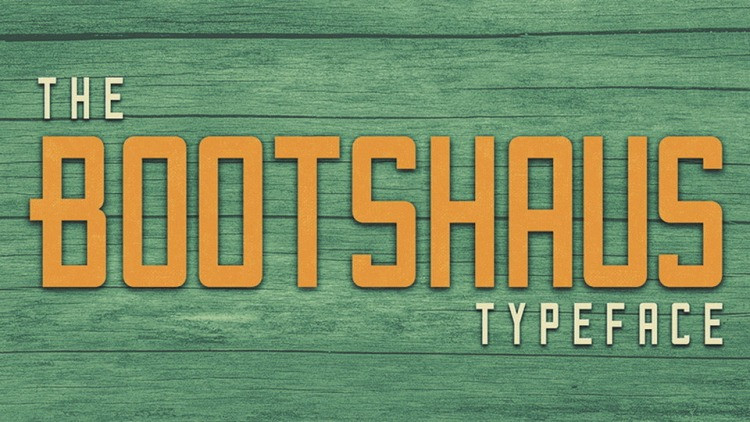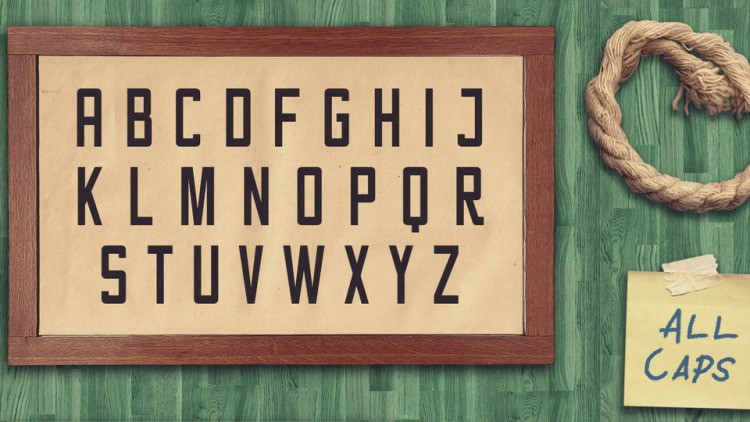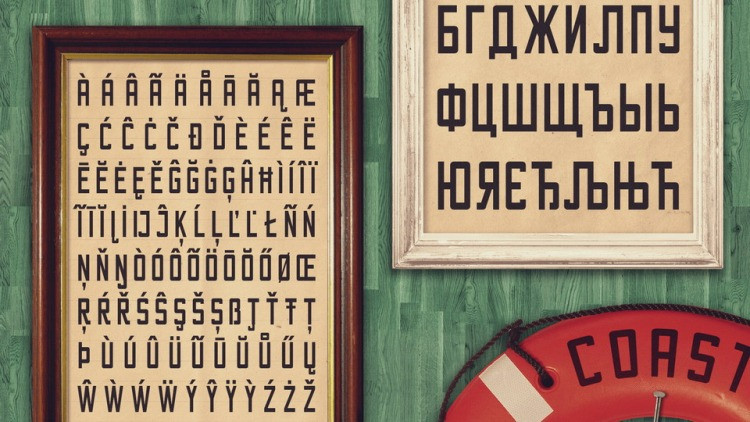
Bootshaus Sans Serif Font
This Typeface designed by Felix’s Foundry is a blocky sans display font with inner angles and outer curves. A strong balance between strong pointed corners and smooth curves, perfect for all purposes but especially for headlines.